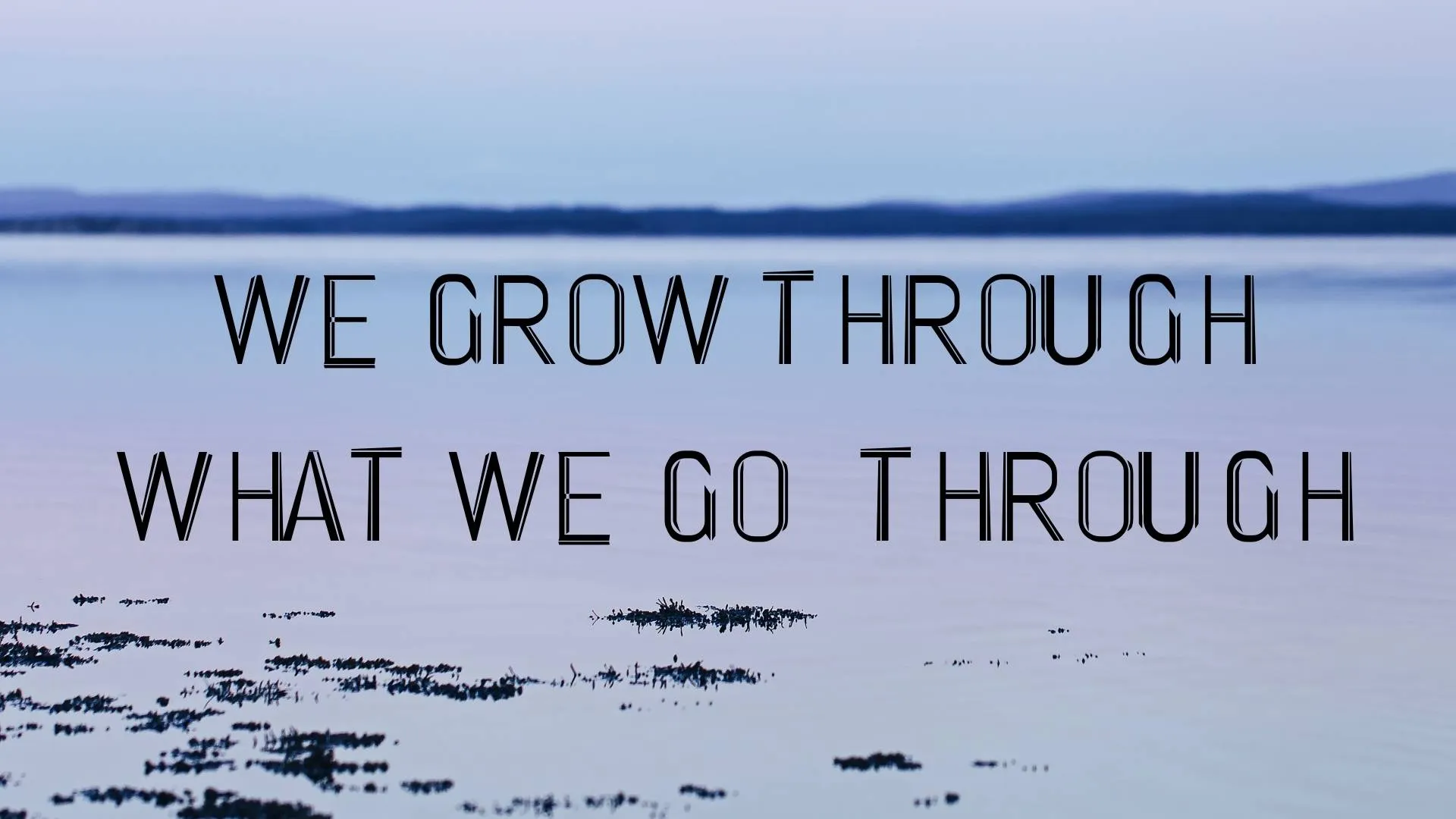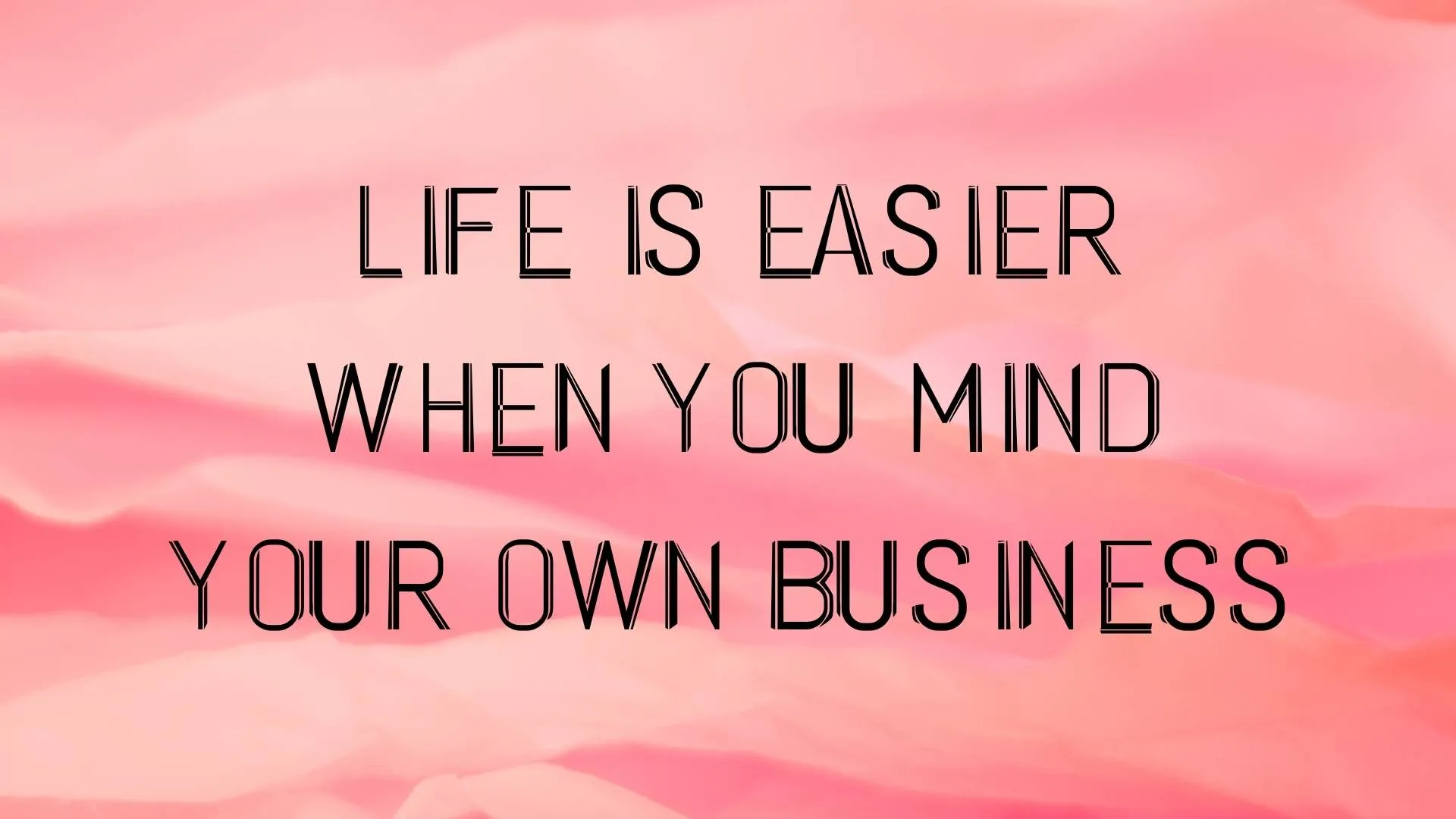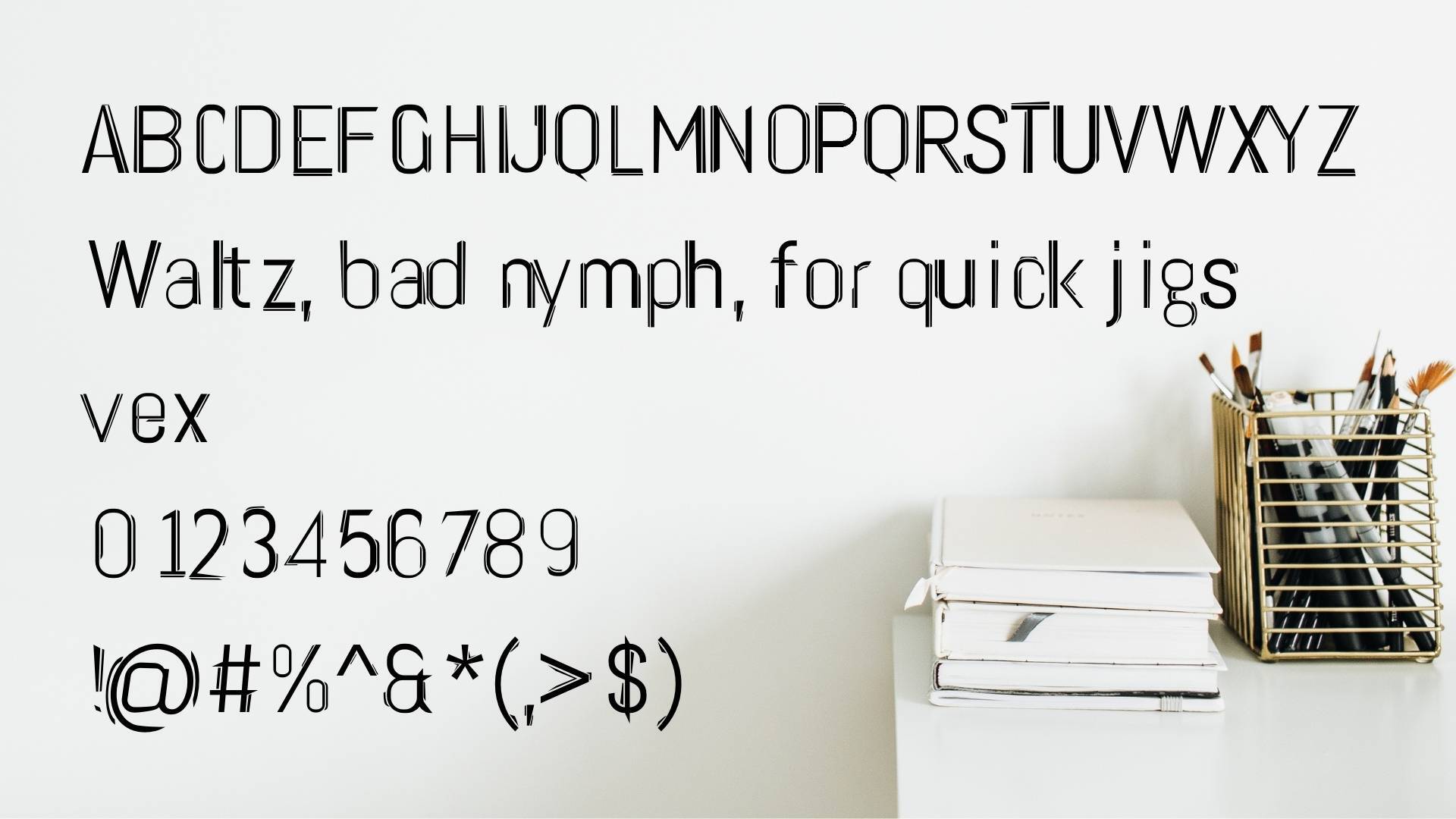
Twin Liner Font is a fresh font with a unique sliced double line feature. This modern and high-quality typeface was created by Boldfonts. Their team has developed numerous typefaces that are widely used by designers in their projects.
You can use this font to create logo designs it can make more attractive, signage, trade show displays, book covers, posters, movie trailers, gift cards, invitation cards, tutorial videos, etc. A pair of this font with Helvetica font is the best choice for your commercial projects.
This typeface also has a pairing nature that can provide you the access to take this font and combine it with another typeface. So, you can make your designs more creative and worthy. This typeface is available to download in two file formats OTF and TTF that you can download from our website.